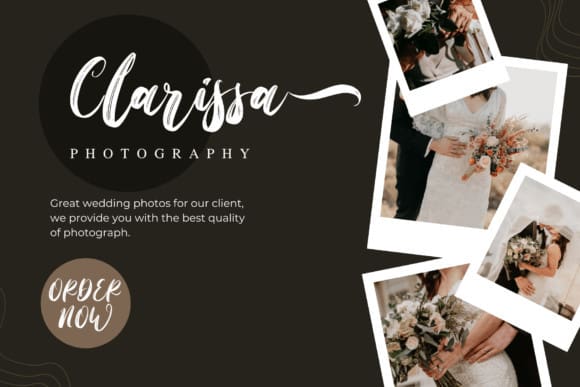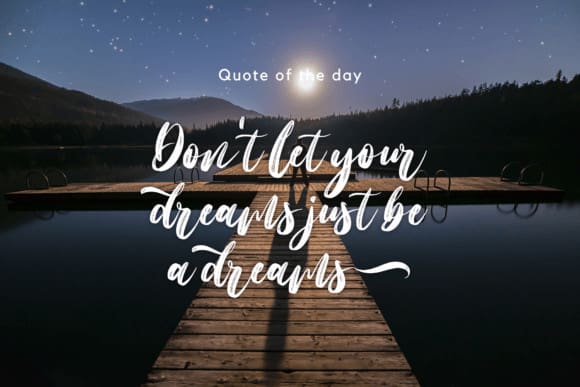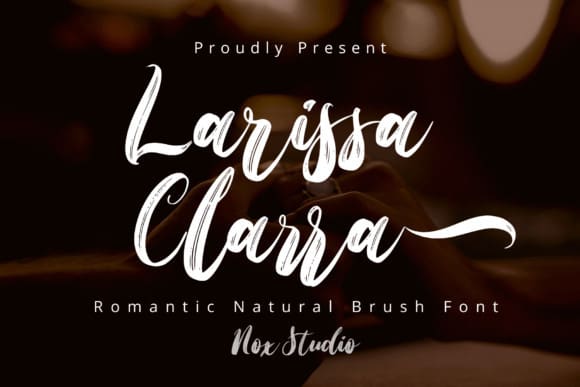
Larissa Clarra Font
Larissa Clarra captures the pure essence of romantic sophistication and elegance in a script brush font, accentuating its chic and refined aesthetic. Embodying style with its unique alternatives and smartly designed ligatures, Larissa Clarra seamlessly complements any project. The font is PUA encoded for simplicity ensuring that every glyph and flourish is effortlessly accessible at your fingertips. Dive into the artistic experience that LarissaClarra offers, where practicality meets vibrant style.